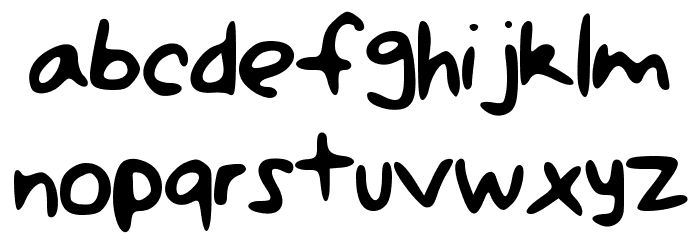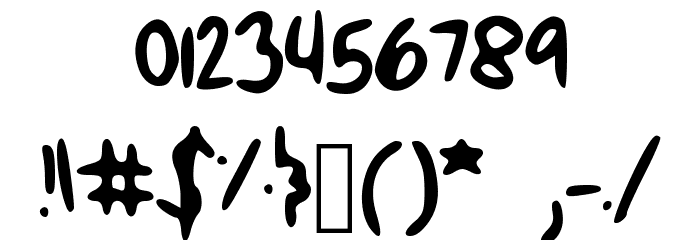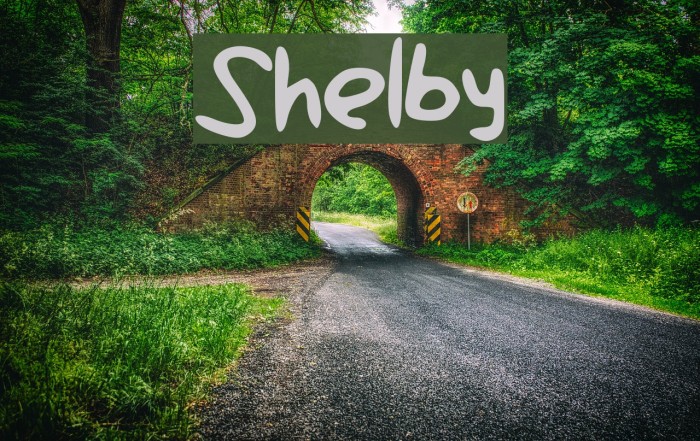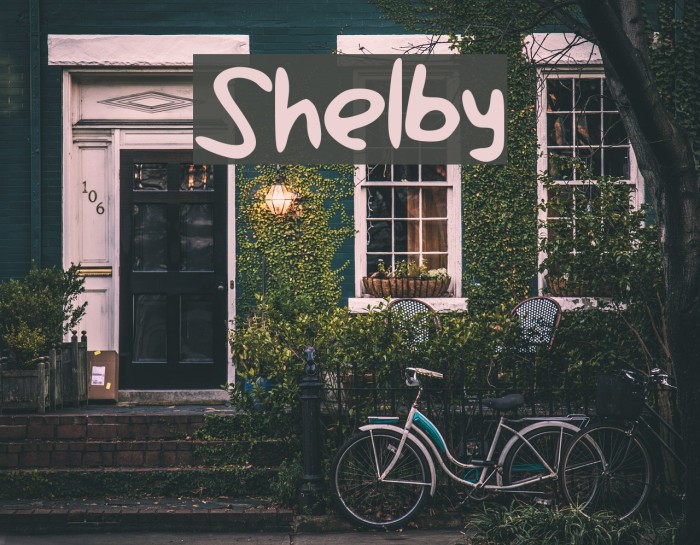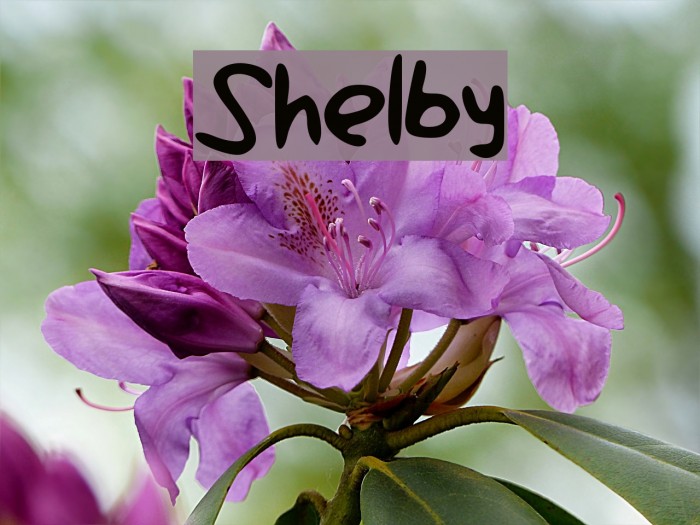
Shelby Font
This playful and energetic font features a handwritten style with bold, rounded strokes that give it a friendly and approachable appearance. The characters are slightly irregular, adding a whimsical touch that enhances its informal nature. The uppercase and lowercase letters maintain a consistent style, with smooth curves and a casual flow. The numerals and special characters are designed to match the overall aesthetic, making this font versatile for various creative projects. Its unique charm makes it suitable for designs that aim to convey warmth and personality.
A playful, handwritten font with bold, rounded strokes and a whimsical touch.
- Proposed Projects: Ideal for children's books, greeting cards, playful branding, and casual invitations.
- Overall Style: Playful
- Use Case: Headlines, Logos, Informal Text